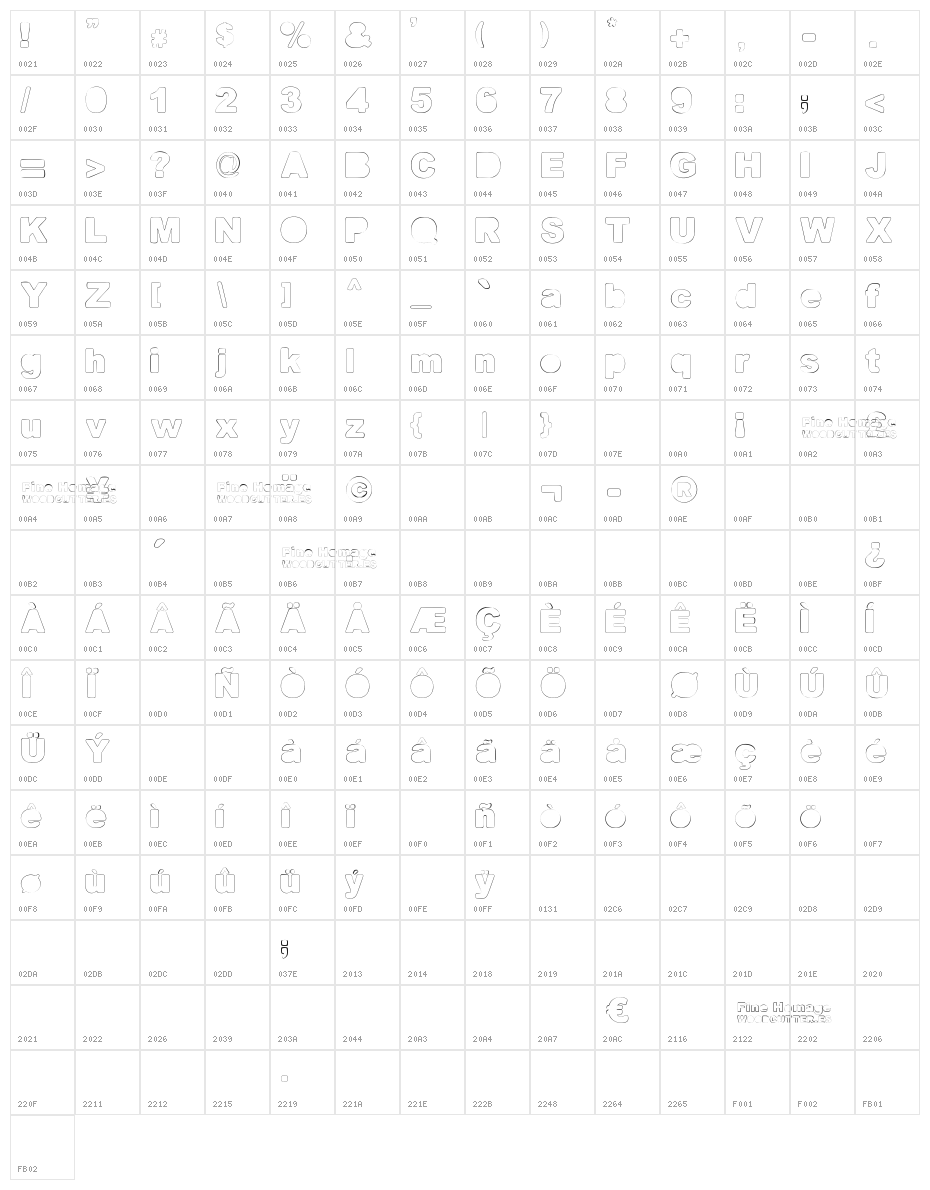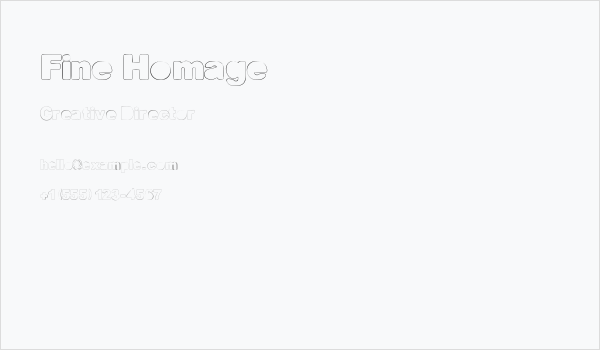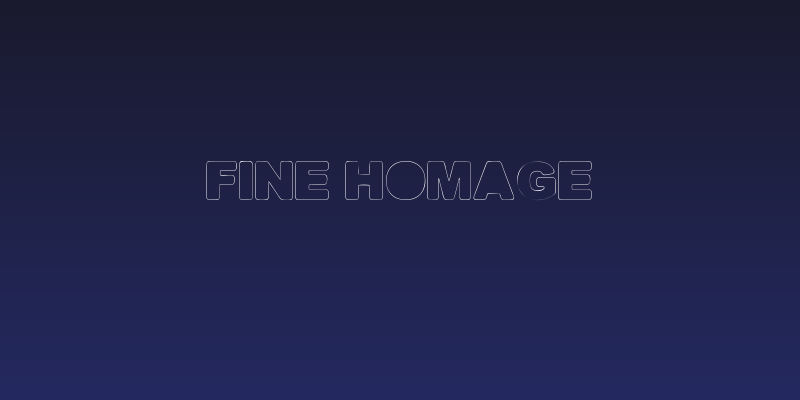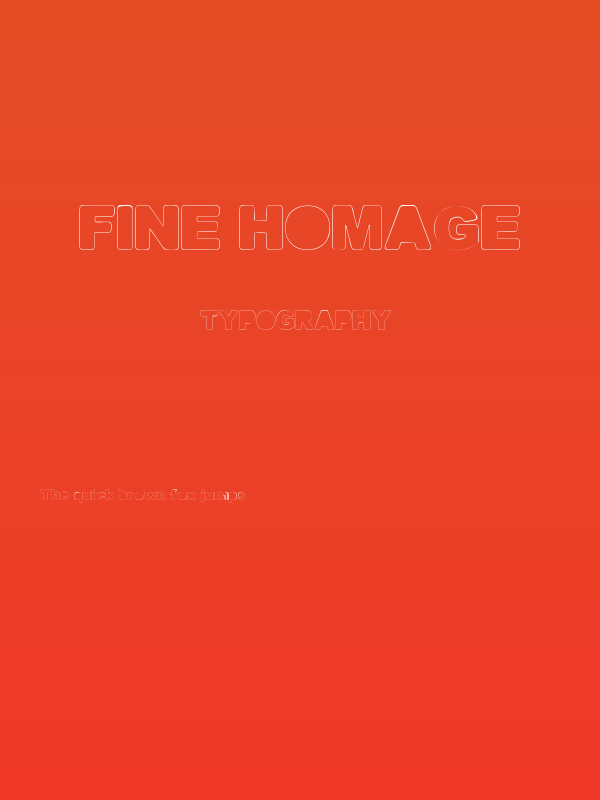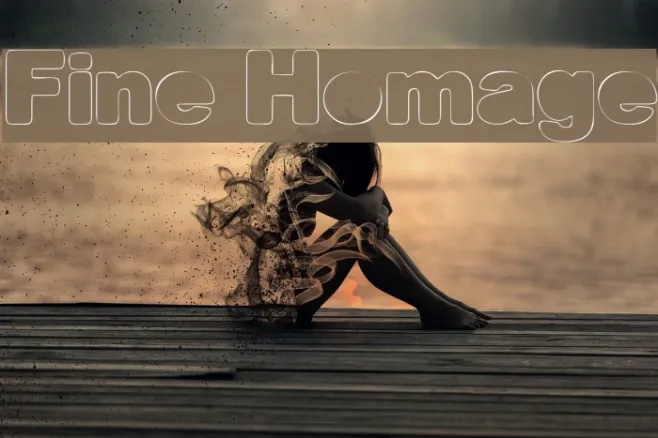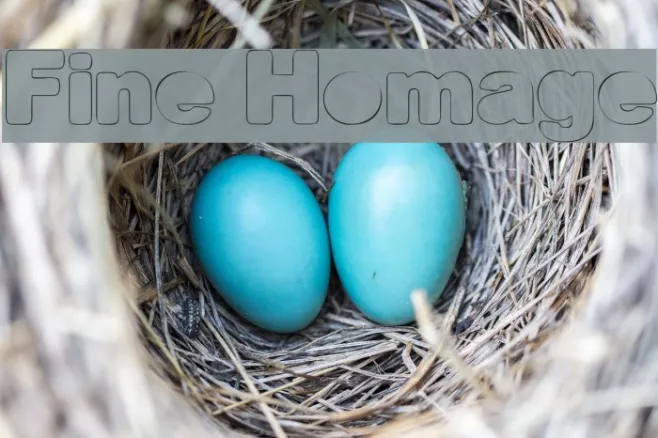
Fine Homage Font
Fine Homage Description
This font features a bold, rounded style with a playful and approachable appearance. The characters are outlined, giving them a hollow look that adds a unique dimension. The uppercase and lowercase letters maintain consistent proportions, creating a harmonious balance. The numbers and special characters follow the same design principles, ensuring uniformity across all elements. The overall design is modern and friendly, making it suitable for a variety of creative applications.
| Proposed Projects | Ideal for children's books, playful branding, posters, and creative digital content. |